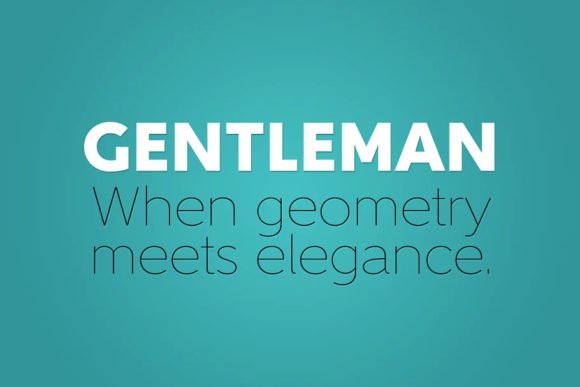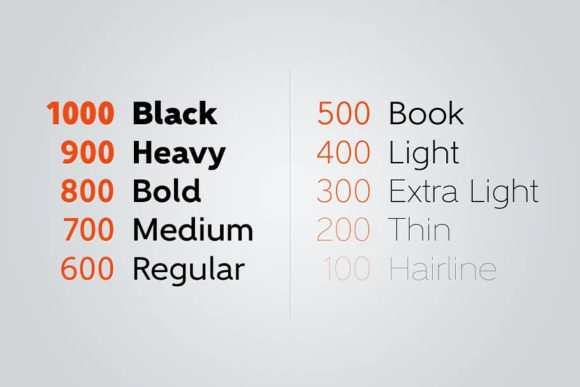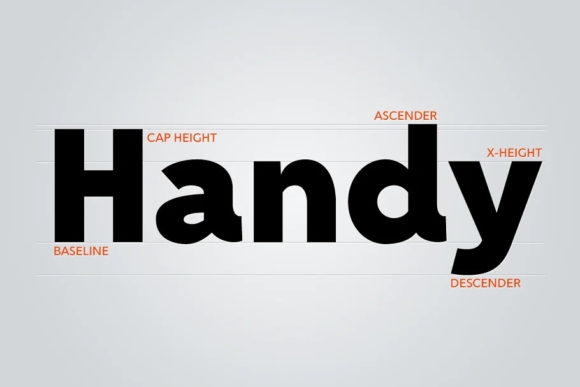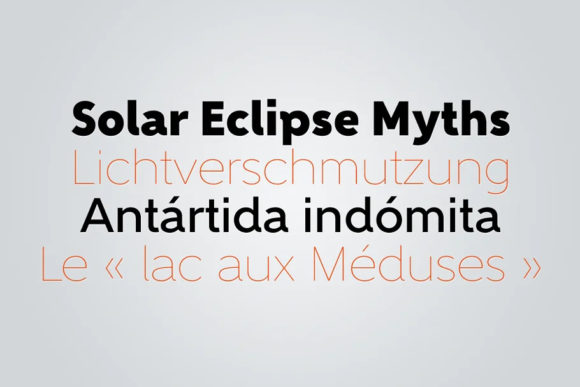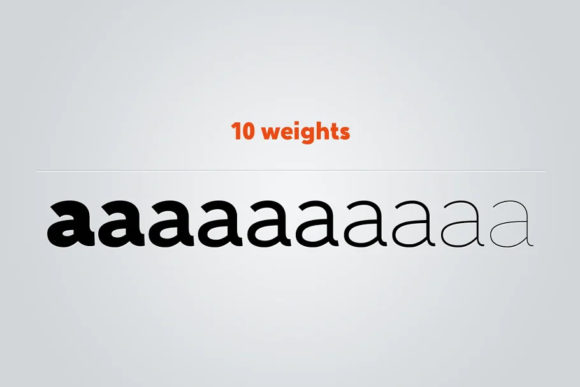
The Birth of a Gentleman: A New Sans Serif Font Family
As a designer, there’s nothing quite like that moment when a new idea strikes. It’s a spark that sets your creative juices flowing, and before you know it, you’re pouring all your energy into bringing it to life. For me, that moment came when I fell in love with geometric typefaces. Their unique, uneven quality is what sets them apart from more modern, plain designs. I knew right then and there that my new font family, the Gentleman Font, would be based on these elementary forms of geometry.
The result is a sans serif font family with ten styles, each one carefully crafted to strike the perfect balance between legibility and personality. With its generous x-height and low-contrast construction, the Gentleman Font is not only visually appealing, but also functional and versatile. Whether you’re a seasoned designer or just starting out, this font family is sure to become a valuable addition to your toolkit.
Gentleman Font Key Features
- Font Family: Gentleman is a modern sans-serif font family designed for digital use, ideal for body text, headings, and titles.
- Unique Characteristics: Gentleman Font features a clean and minimalist design, with a focus on readability and legibility, making it an excellent choice for digital media, such as websites, apps, and e-books.
- Language Support: Gentleman Font supports a wide range of languages, including Latin, Cyrillic, and Greek scripts, as well as many non-Latin scripts, making it a versatile font for global applications.
Gentleman Font Review
I recently had the chance to work with the Gentleman Font, and I must say it’s a unique addition to any design project. ✨ One of the things that stands out is its elegant and sophisticated look, perfect for creating a refined atmosphere. The font’s classic feel makes it suitable for a wide range of applications, from business cards to magazine layouts.
Another great aspect of the Gentleman Font is its high-quality rendering. The lines are crisp, and the curves are smooth, making it a pleasure to work with. ✨ Additionally, the font’s readability is excellent, even at smaller sizes, which is essential for any design project.
Limits and Challenges
While the Gentleman Font excels in many areas, there are a few limitations that designers should be aware of. ⚠️ Firstly, the font’s style may not be suitable for more casual or playful projects, as it can come across as too formal. Additionally, the font’s limited character set may require some extra work for designers who need to use non-standard characters.
Overall, I would say that the Gentleman Font is a solid choice for designers who want to add a touch of elegance to their projects. With its unique style, high-quality rendering, and excellent readability, it’s definitely worth considering. However, designers should be aware of its limitations and use it judiciously to get the most out of it.
- Elegant and sophisticated look
- High-quality rendering
- Excellent readability
- Classic feel suitable for a wide range of applications
- Limited character set
- May not be suitable for casual or playful projects
Getting the Most Out of Gentleman Font
For best results, use Gentleman Font in headings and titles to add a touch of elegance to your designs.
Experiment with different font sizes and colors to create visual interest and hierarchy in your content.
Gentleman Font is ideal for:
Business cards and brochures
Formal event invitations and announcements
Alternatives to Gentleman Font
Q: What is the character set of the Gentleman Font?
The Gentleman Font includes a comprehensive character set that supports Latin, Cyrillic, and Greek alphabets, as well as a range of punctuation and special characters. The font also includes support for various OpenType features, such as ligatures, swashes, and ornaments.